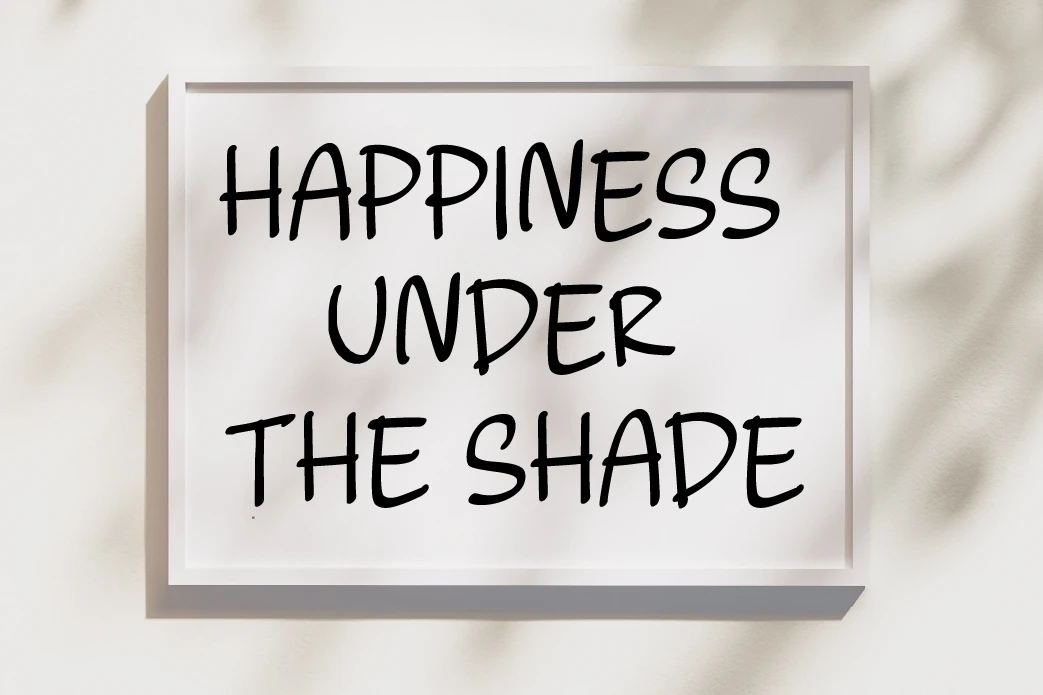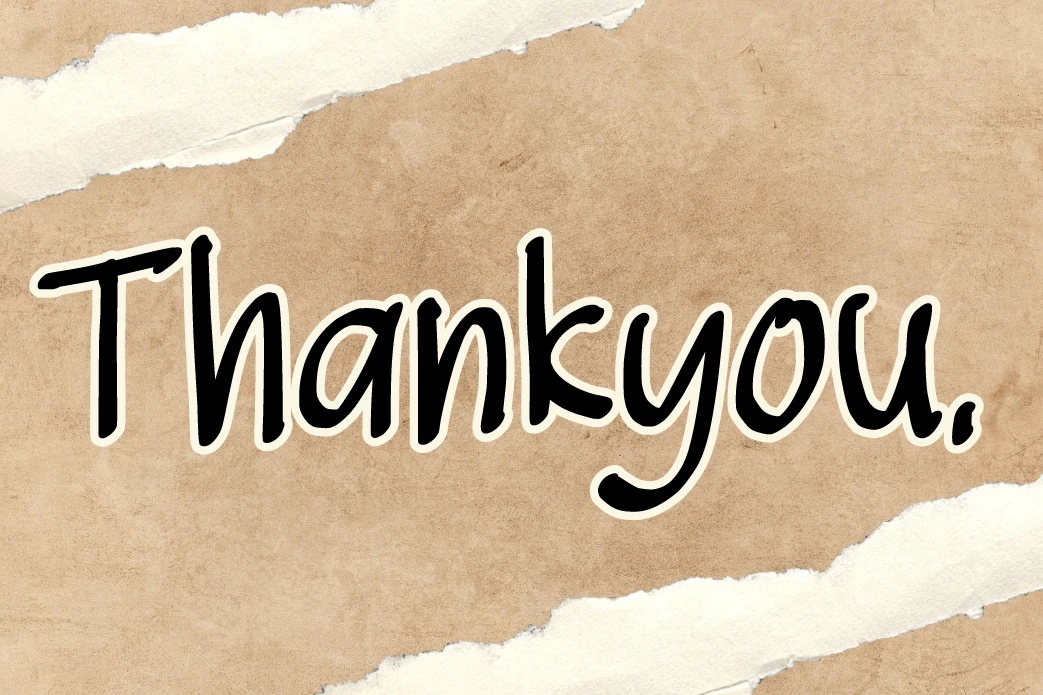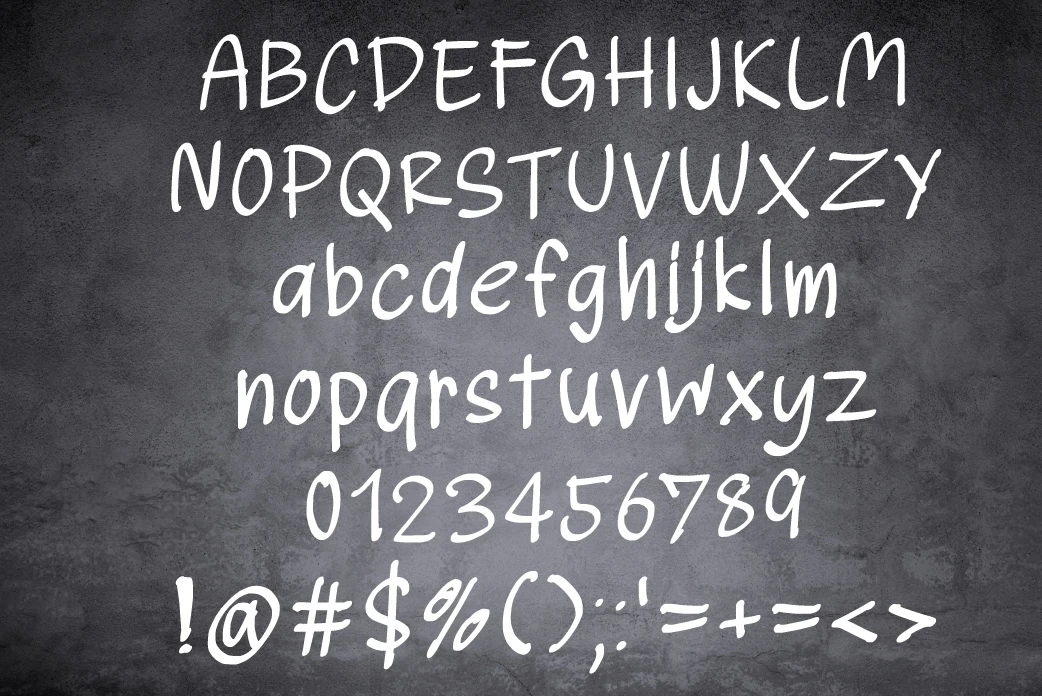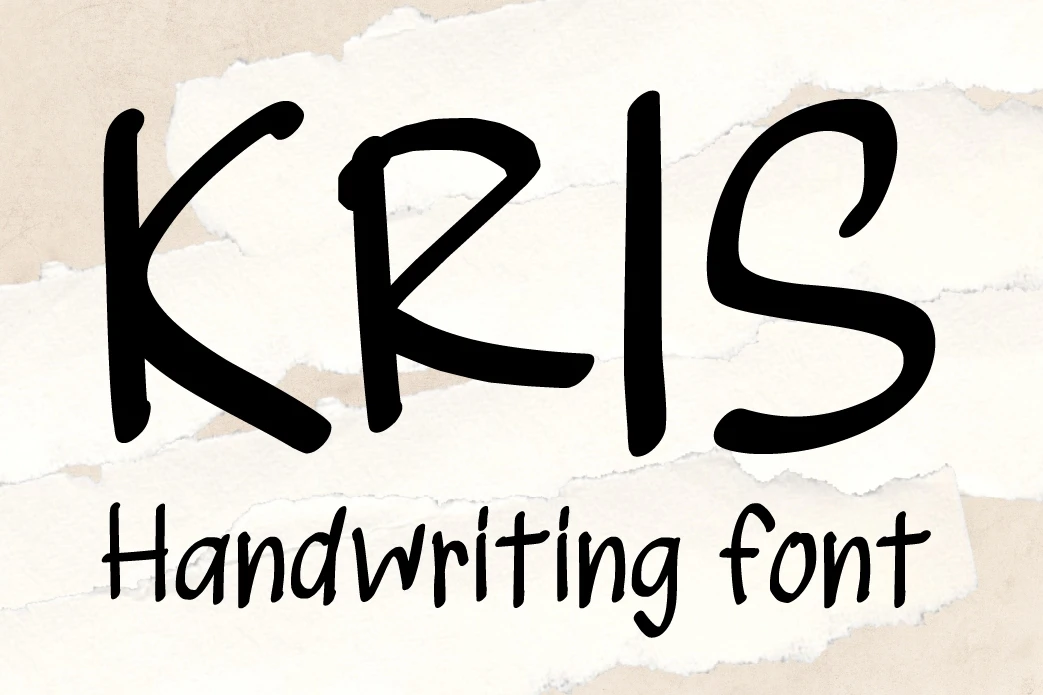
"KRIS" Fonts are fun, casual and creative. Natural looking handwritten letters,
characters include uppercase, lowercase letters, special for note taking, greetings,
creating invitations, posters or digital art. This font will make your message stand out and grab attention.